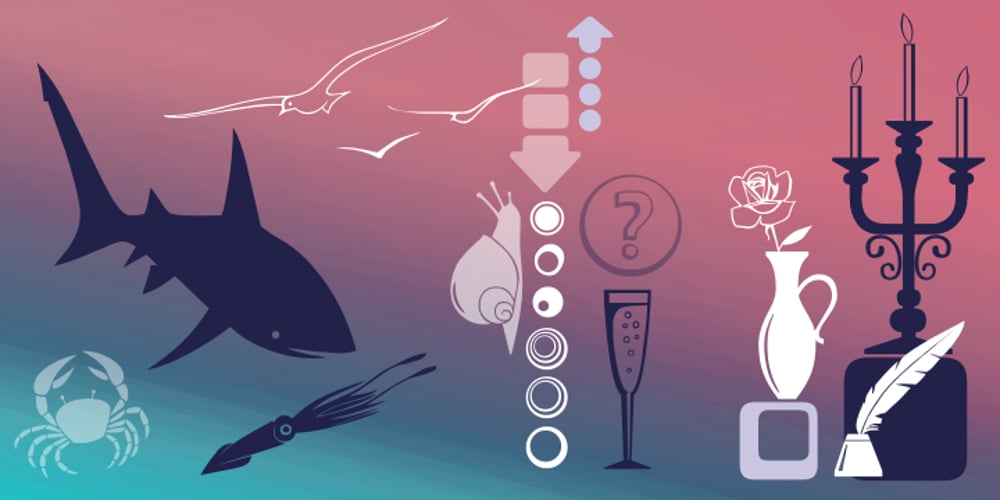
Nat Pictures Font Family was designed by Natalia Vasilyeva and published by ParaType. Nat Pictures contains 2 styles and family package options. Two sets of signs and pictures designed by Natalia Vasilyeva. The first one includes figures, arrows, geometric shapes and other signs of abstract nature. The second set — pictures of flora and fauna (animals, fishes, birds, insects, plants,…) and pictures of common staff (houseware, instruments,…). Released by ParaType in 2009.